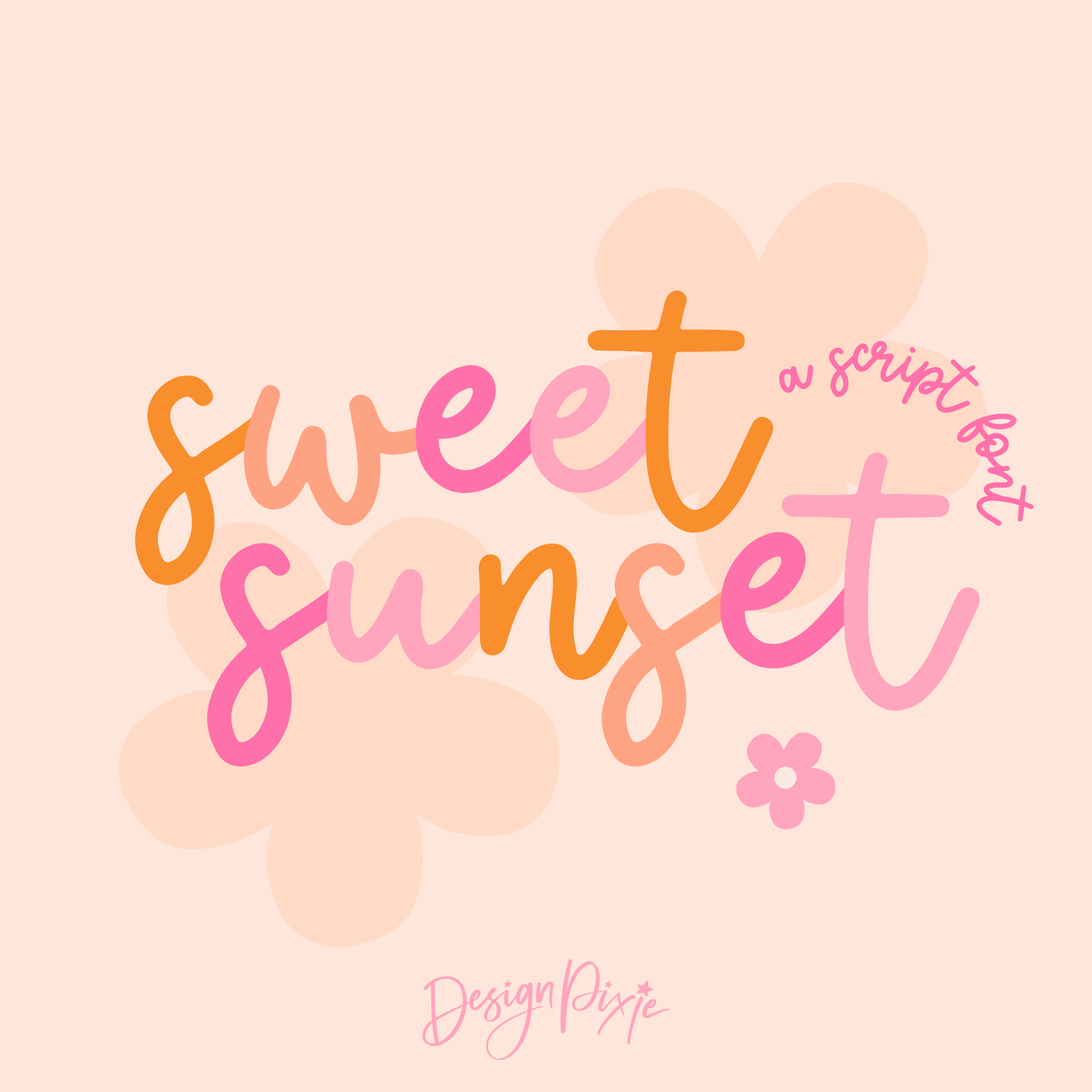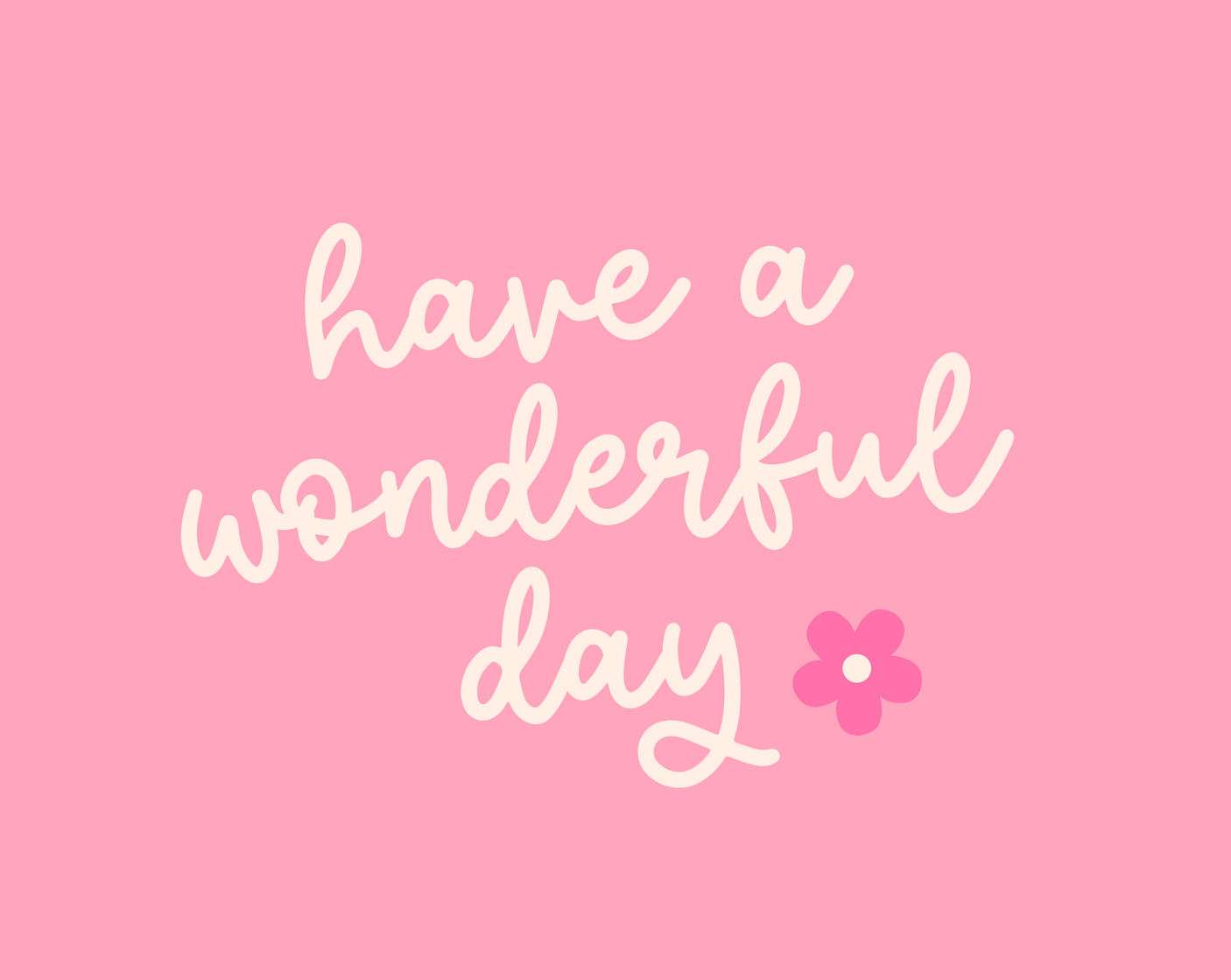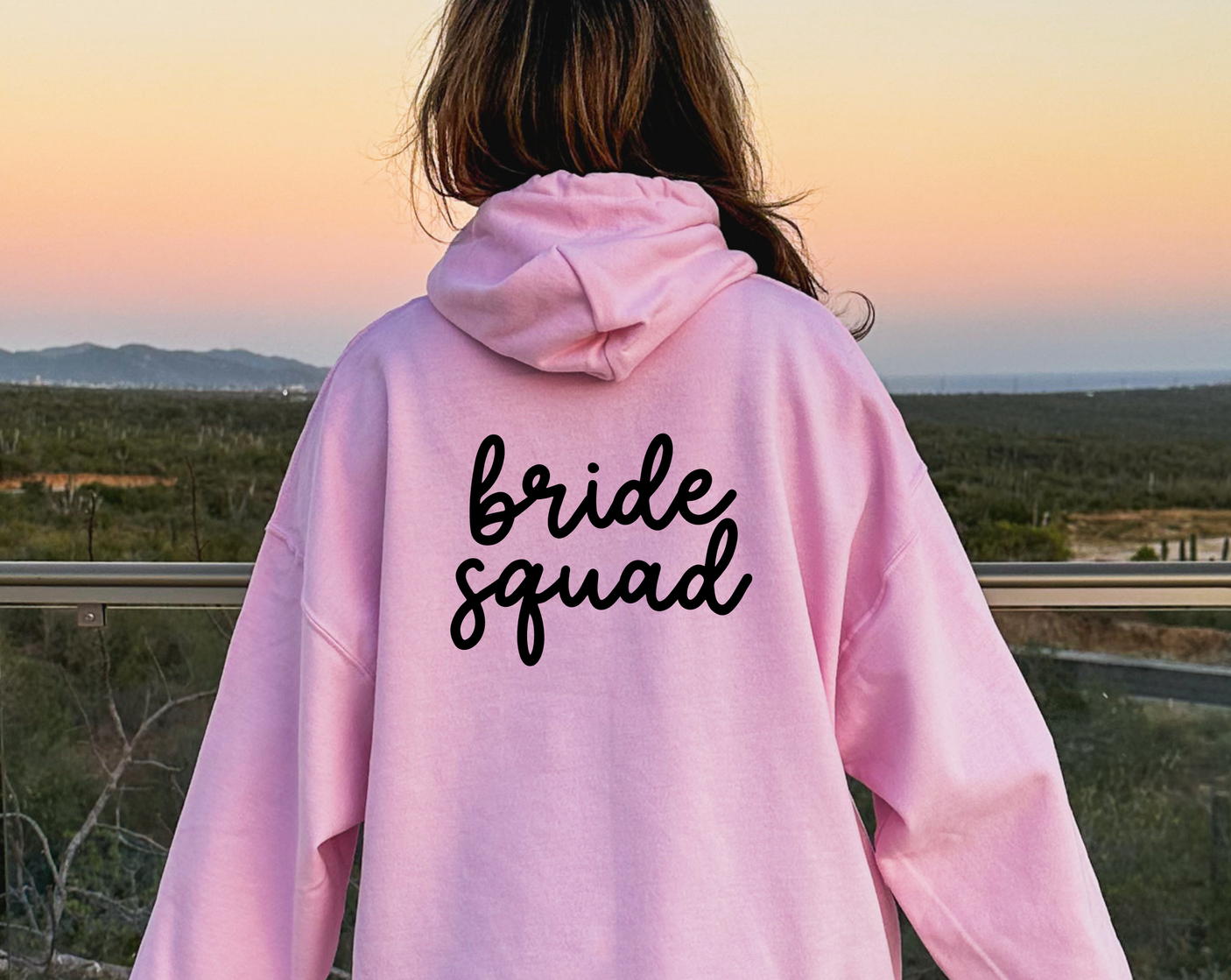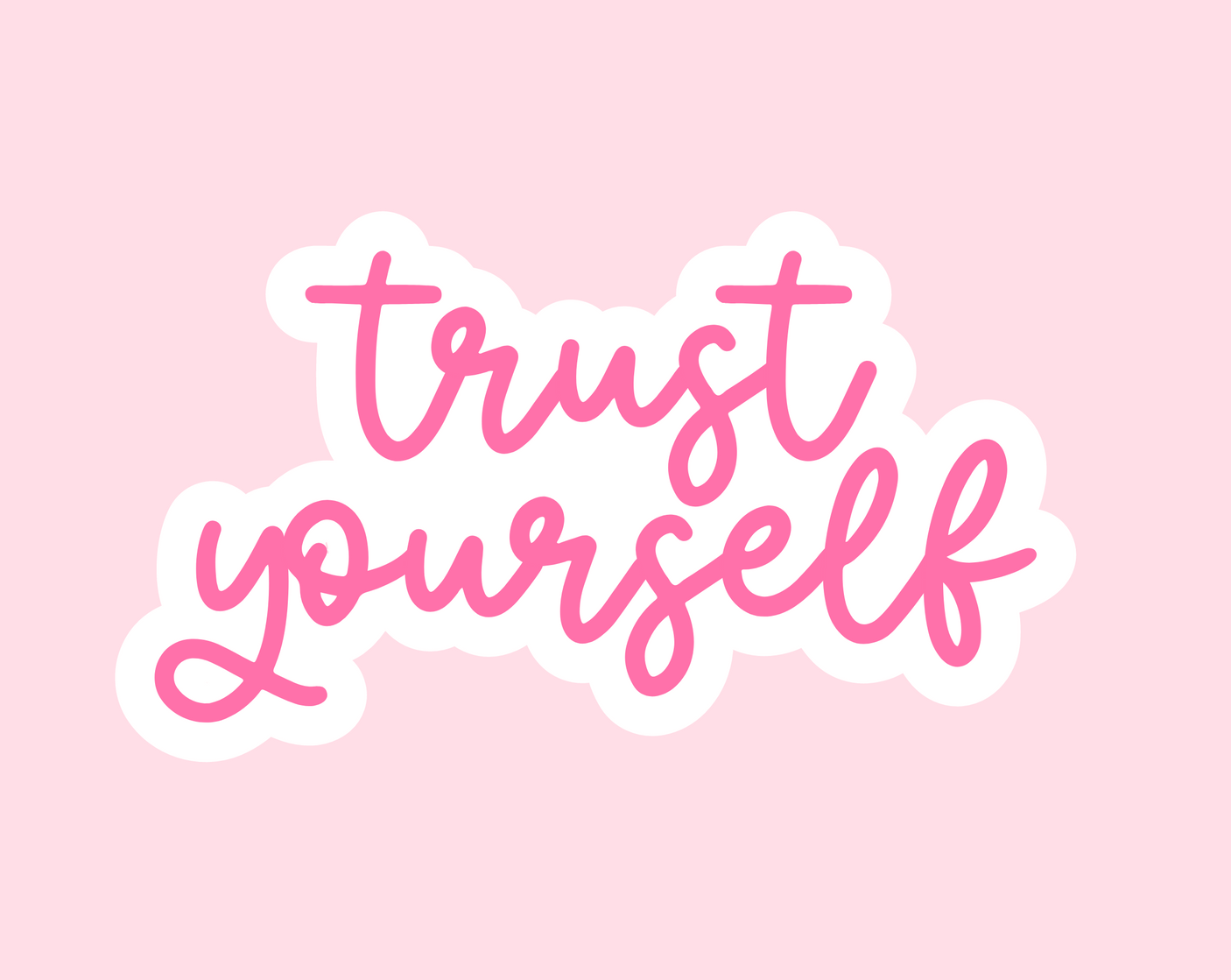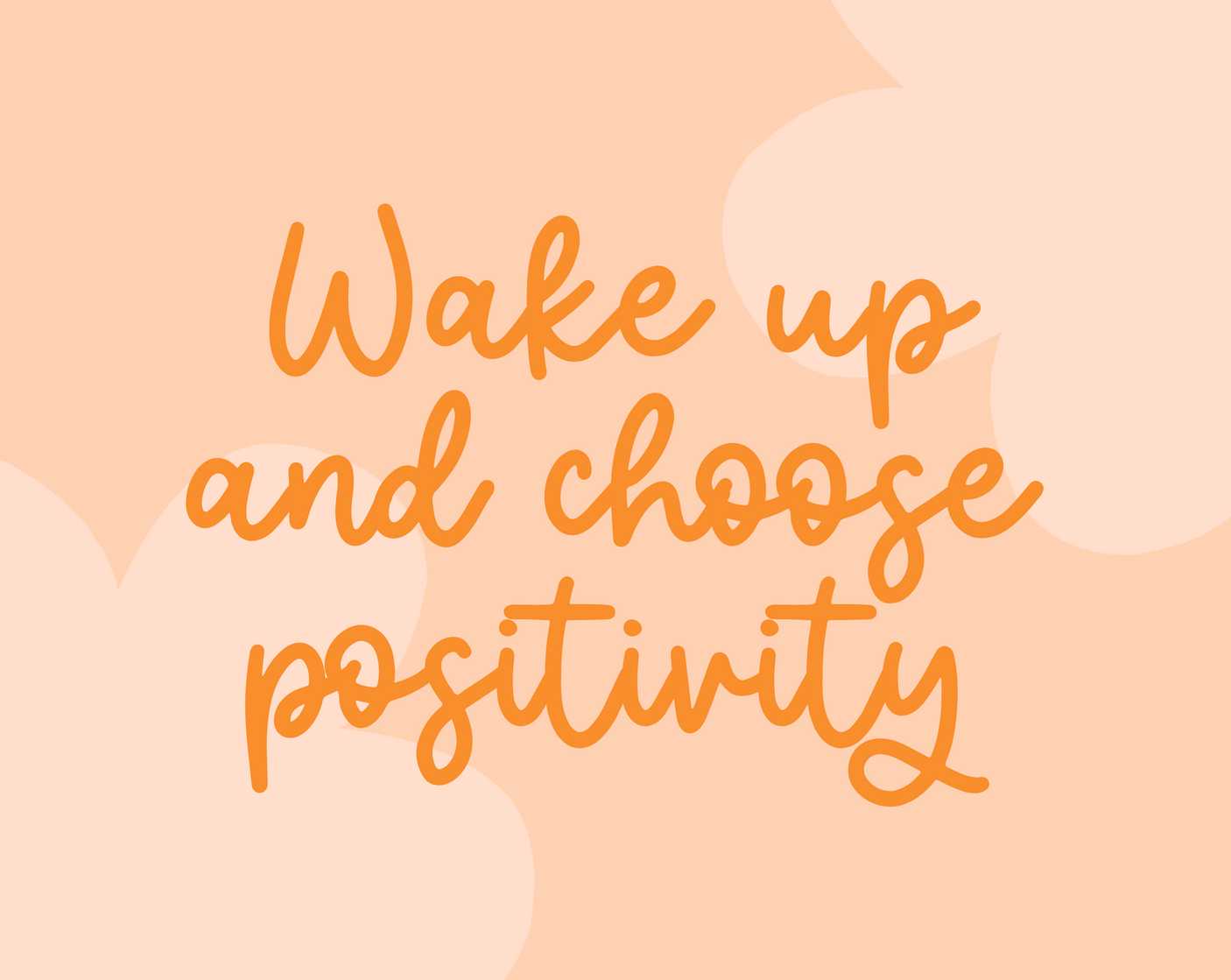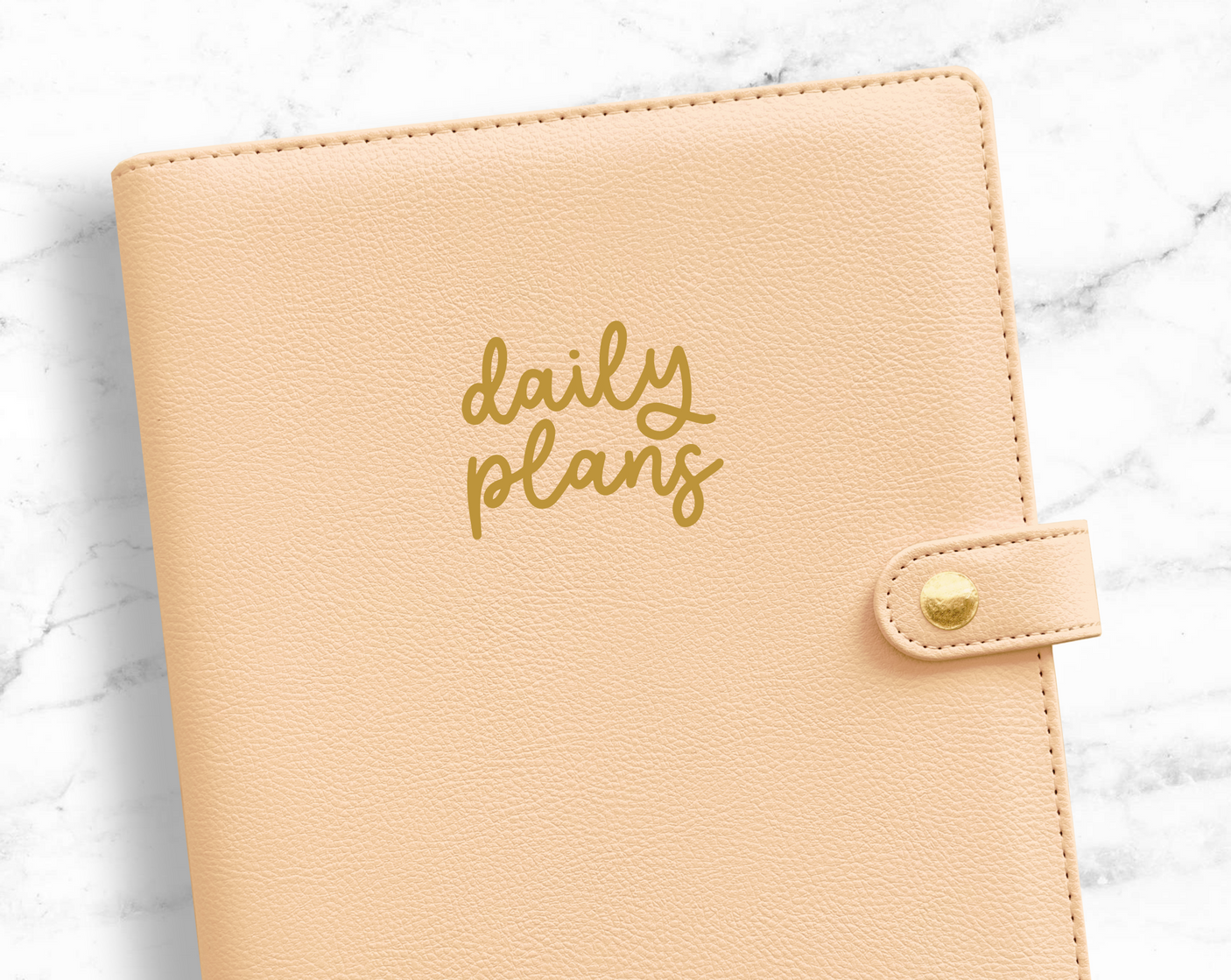
Sweet Sunset Font
Capture warmth and magic with Sweet Sunset, a bold and playful handwritten font that brings a touch of joy to your designs. This font’s lively cursive style is perfect for logos, social media graphics, and crafty projects, adding a personal and creative flair to your work. Whether you’re using Procreate, Cricut, or Canva, Sweet Sunset is your go-to font for creating vibrant and engaging text.
Beyond its visual appeal, Sweet Sunset is designed for versatility and ease of use. Its bold strokes and smooth curves ensure that your message is delivered with clarity, while its playful nature keeps your designs fun and inviting. Whether you’re crafting a logo for a new brand or creating a heartfelt greeting card, Sweet Sunset adds a burst of creativity and warmth to every project, making it a must-have in your playful fonts collection.